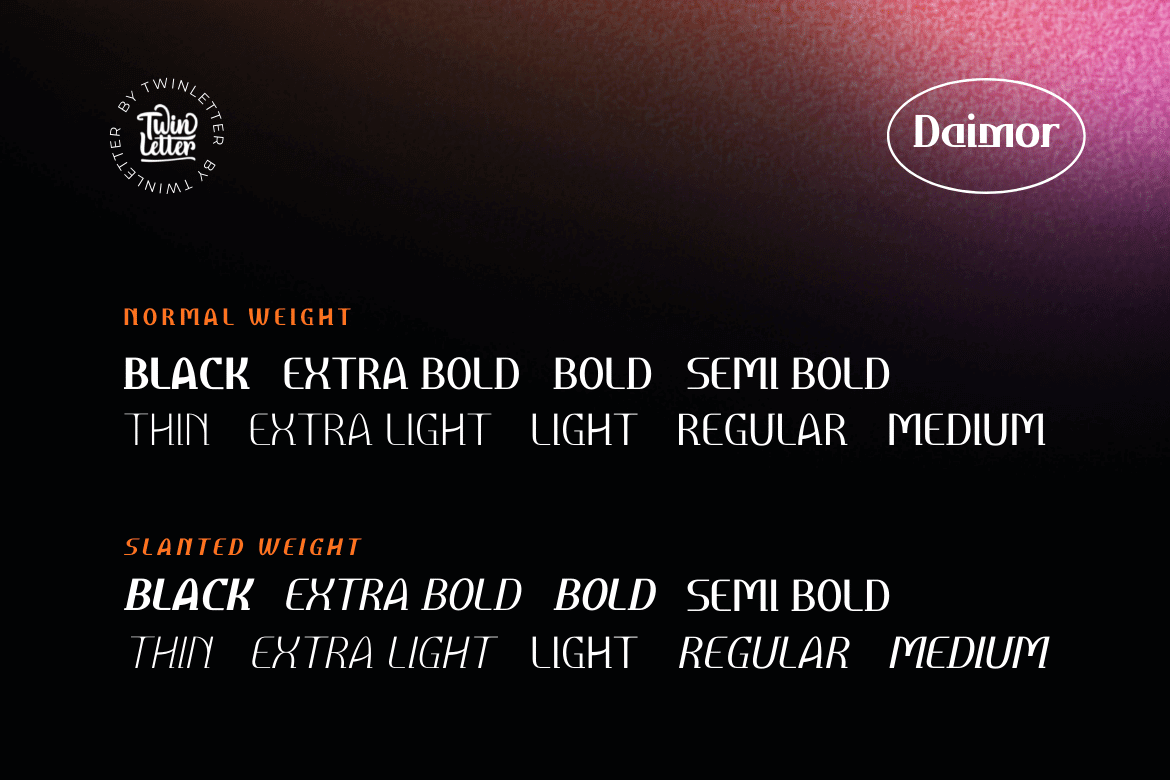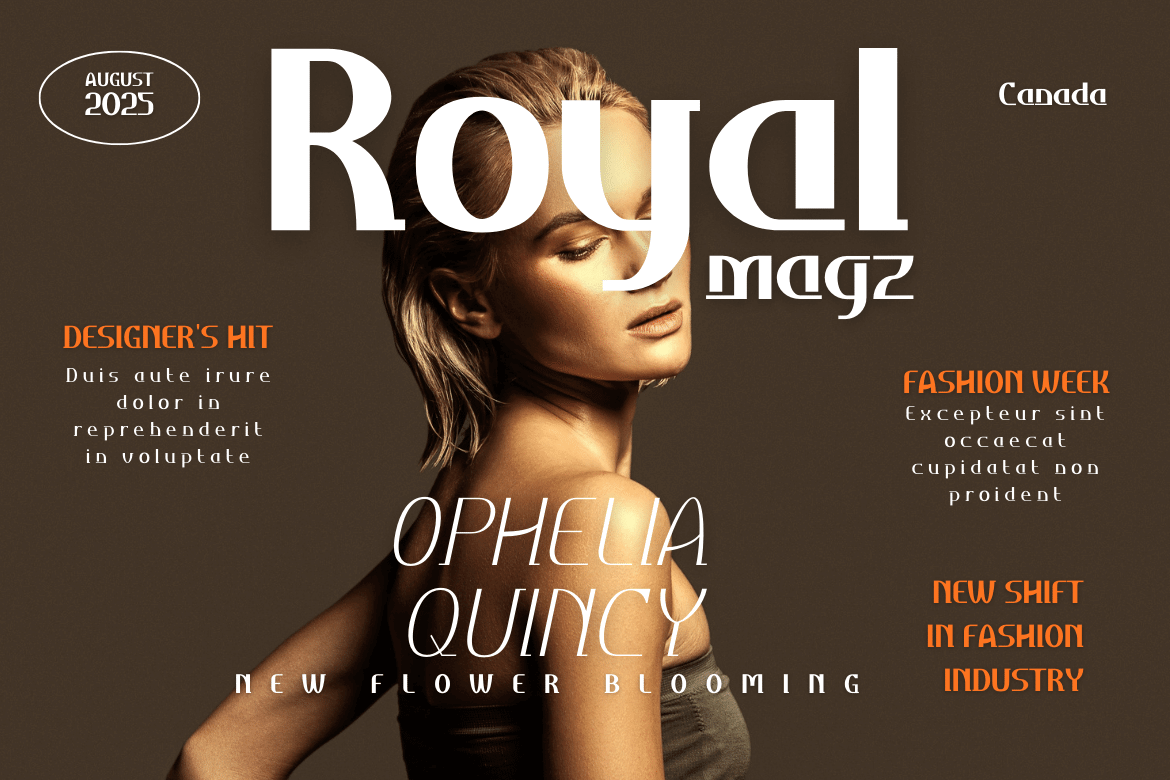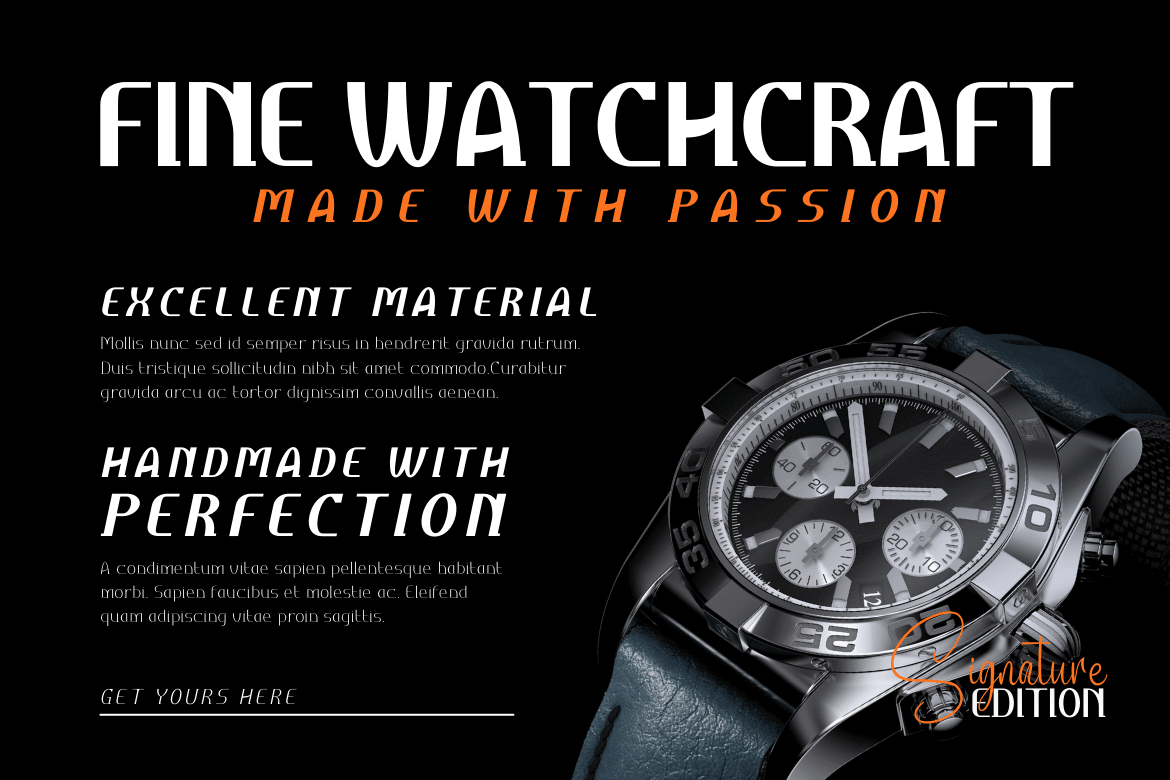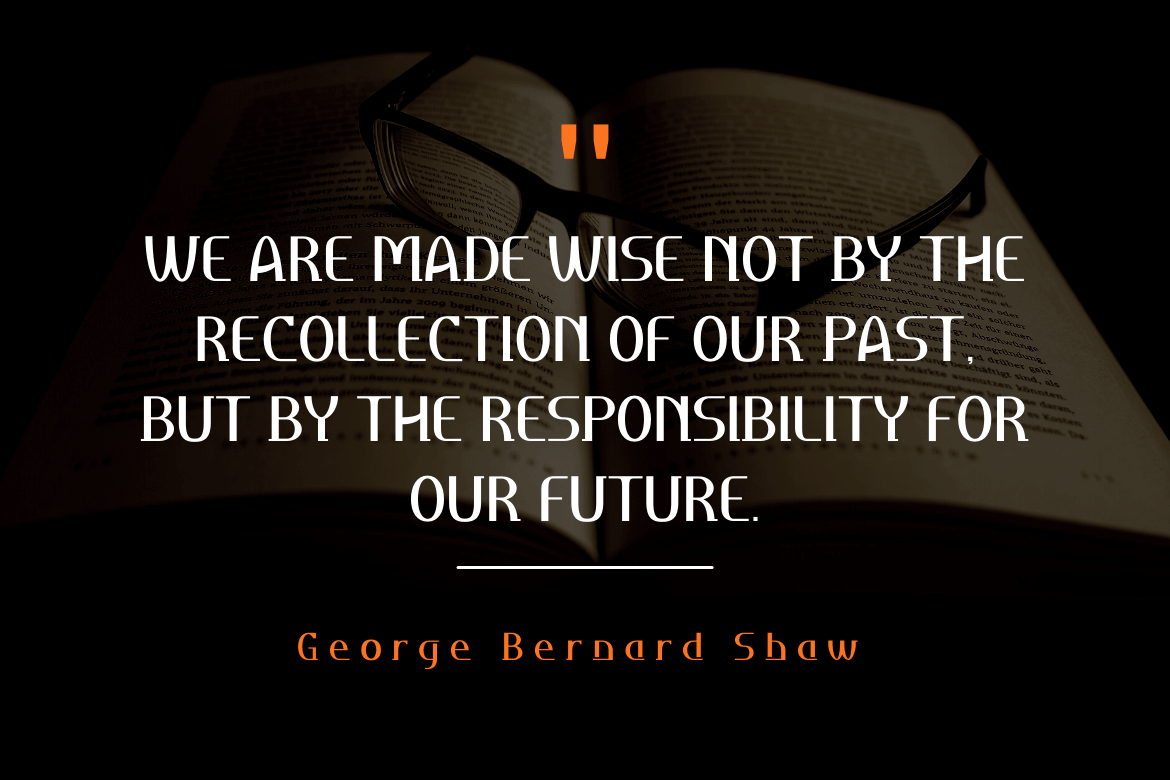
Daimor Sans Serif Font
This new set of fonts will give your designs luxury and uniqueness for all kinds of project needs. This pack comes in 18 different styles which makes it perfect for a wide variety of projects. Each style has been uniquely created to maximize beauty and character. This font is specially designed for a variety of display design and branding projects, but will also look great as headlines, text, banners, posters, or anything else.
of course, your various design projects will be perfect and extraordinary if you use this font because this font is equipped with a font family, both for titles and subtitles and sentence text, start using our fonts for your extraordinary projects.